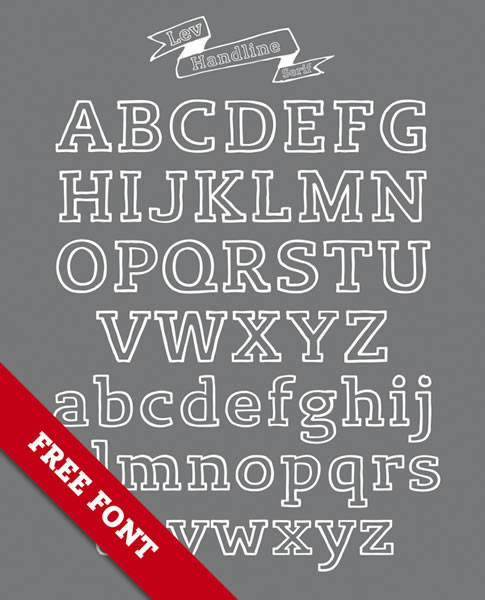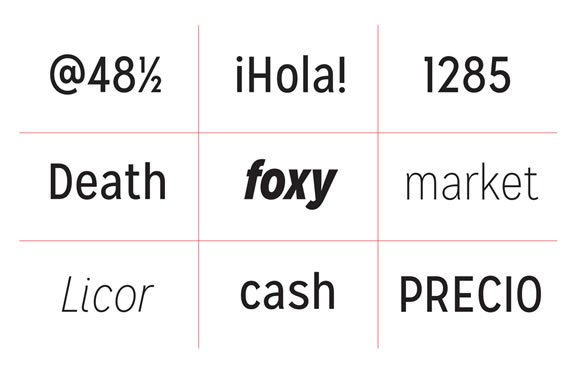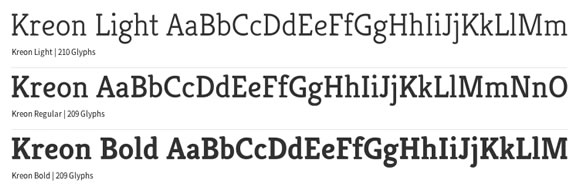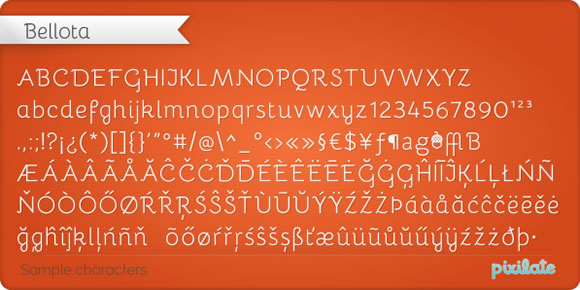
9 Free Fonts for your Delight
Here at WDL we believe that our readers can always use on new freebies for their projects. And this is why we like to keep you posted on what is new out there, especially when it comes to free fonts, like the ones we have here today.
Langdon
Airbag
Lev Serif Handline
Mission Gothic
Mathlete
Kreon
Ponsi Rounded Slab Regular
Marvel
Bellota
That’s funny, great minds must think alike. I just wrote a post on my site of 11 fantastic free fonts, and Langdon and Airbag were on it. Mission Gothic and Bellota are really nice, clean fonts as well. Nice choices!